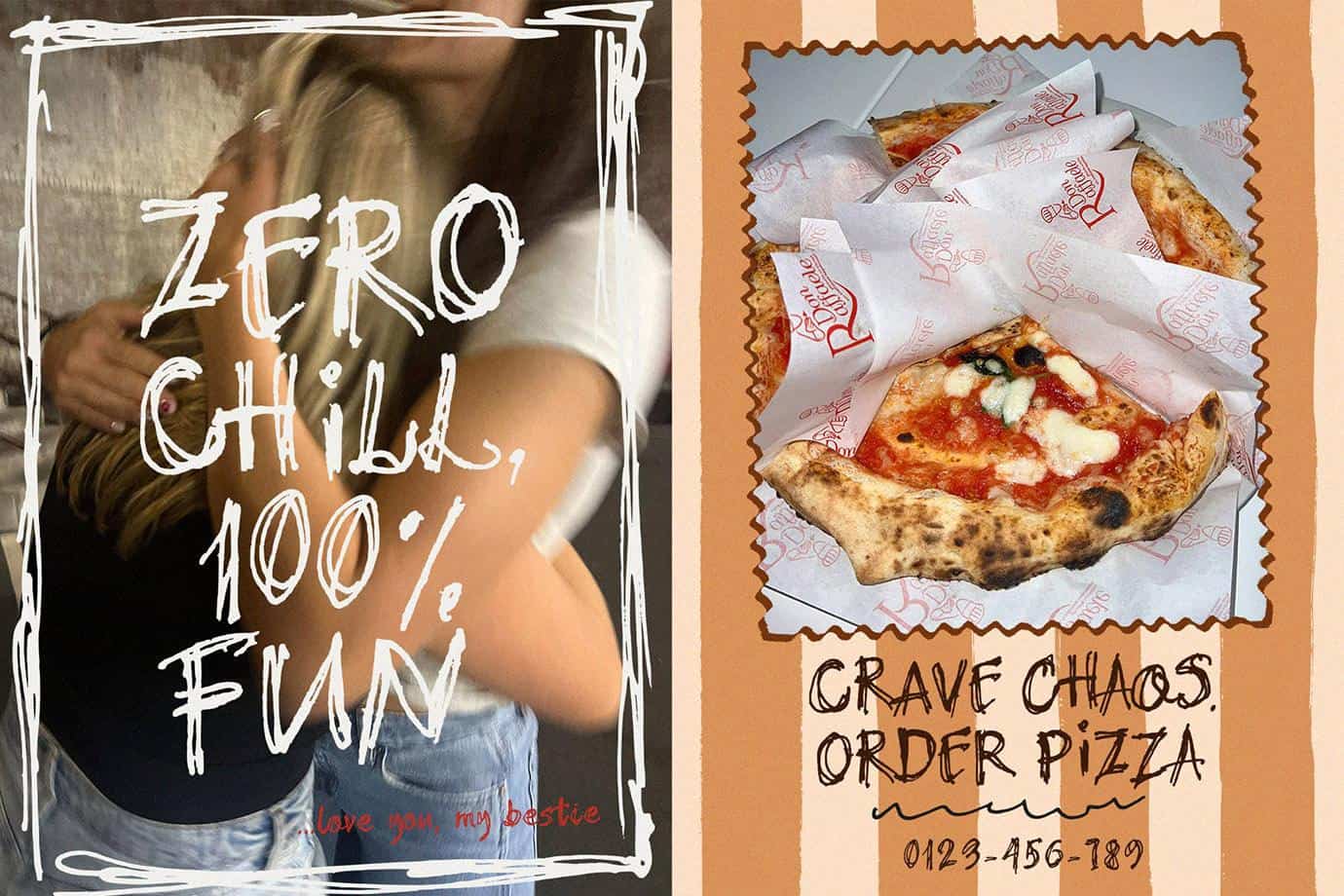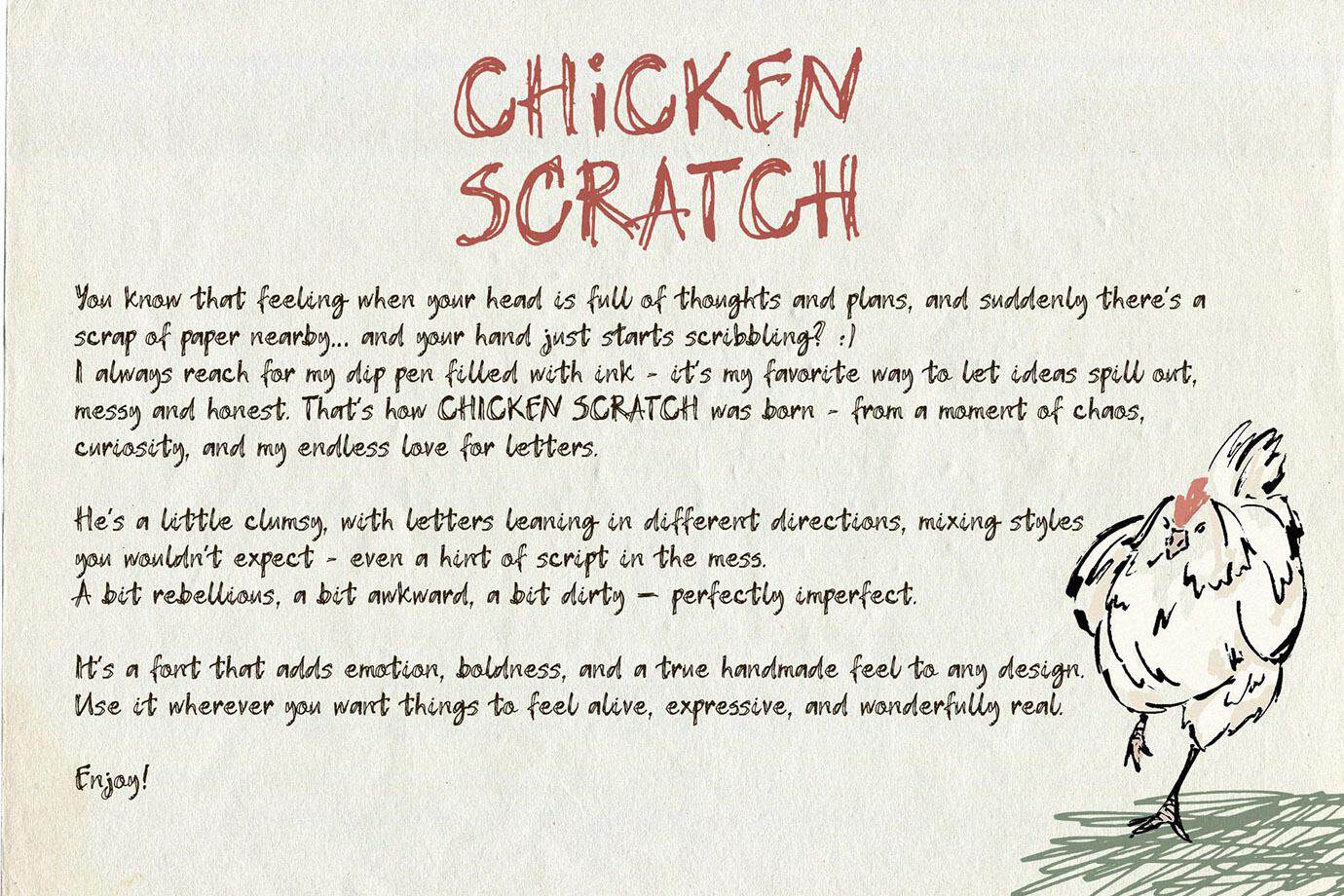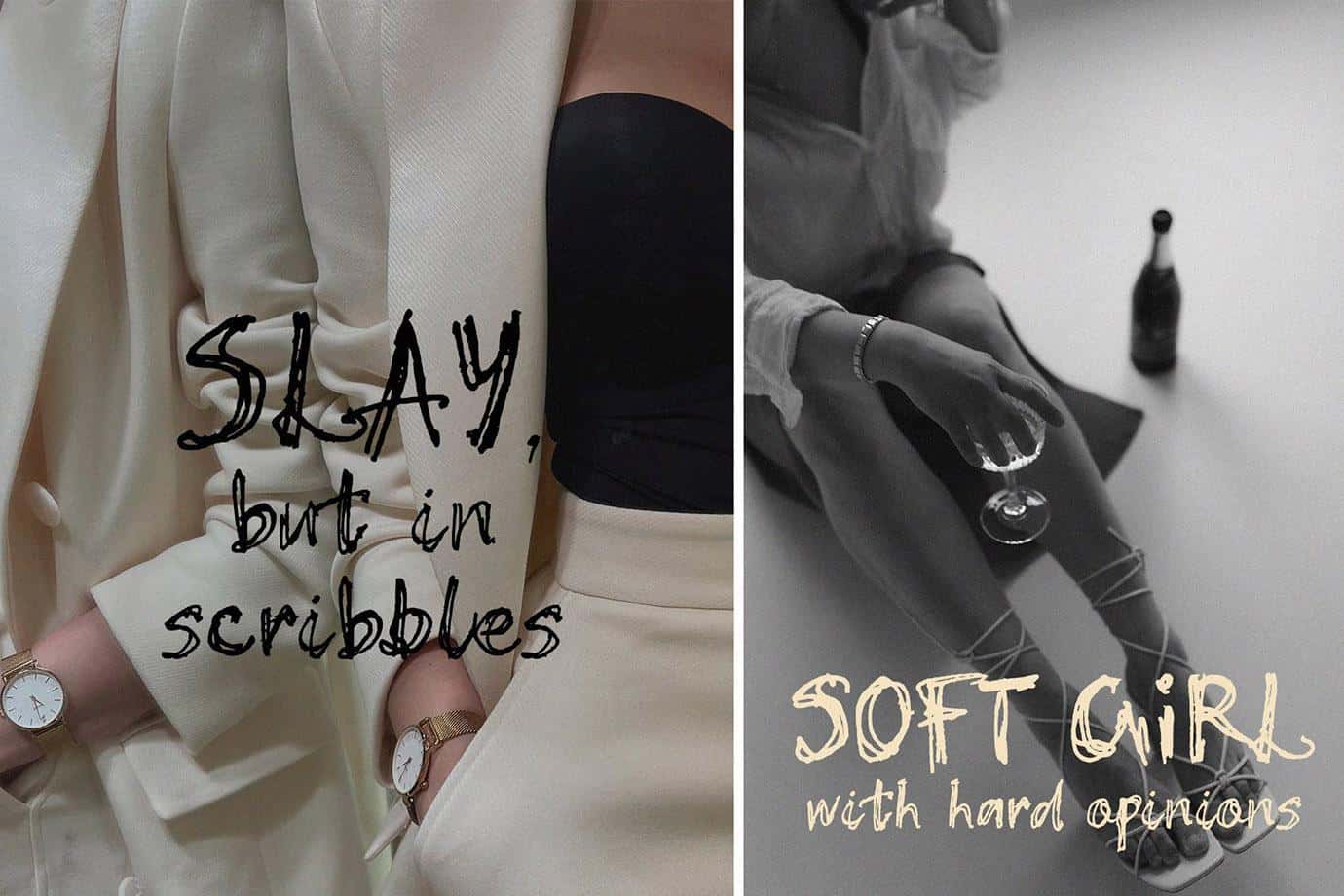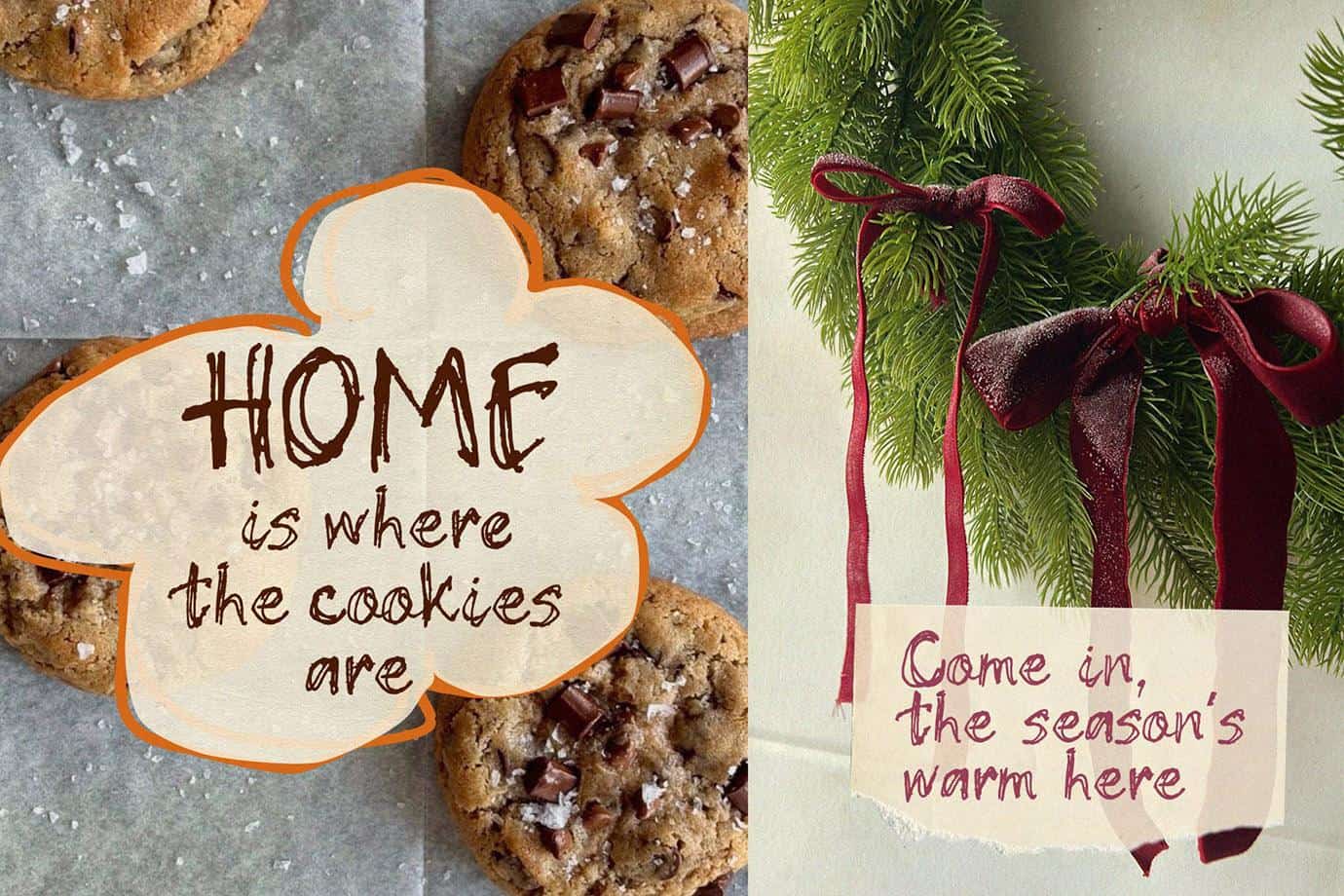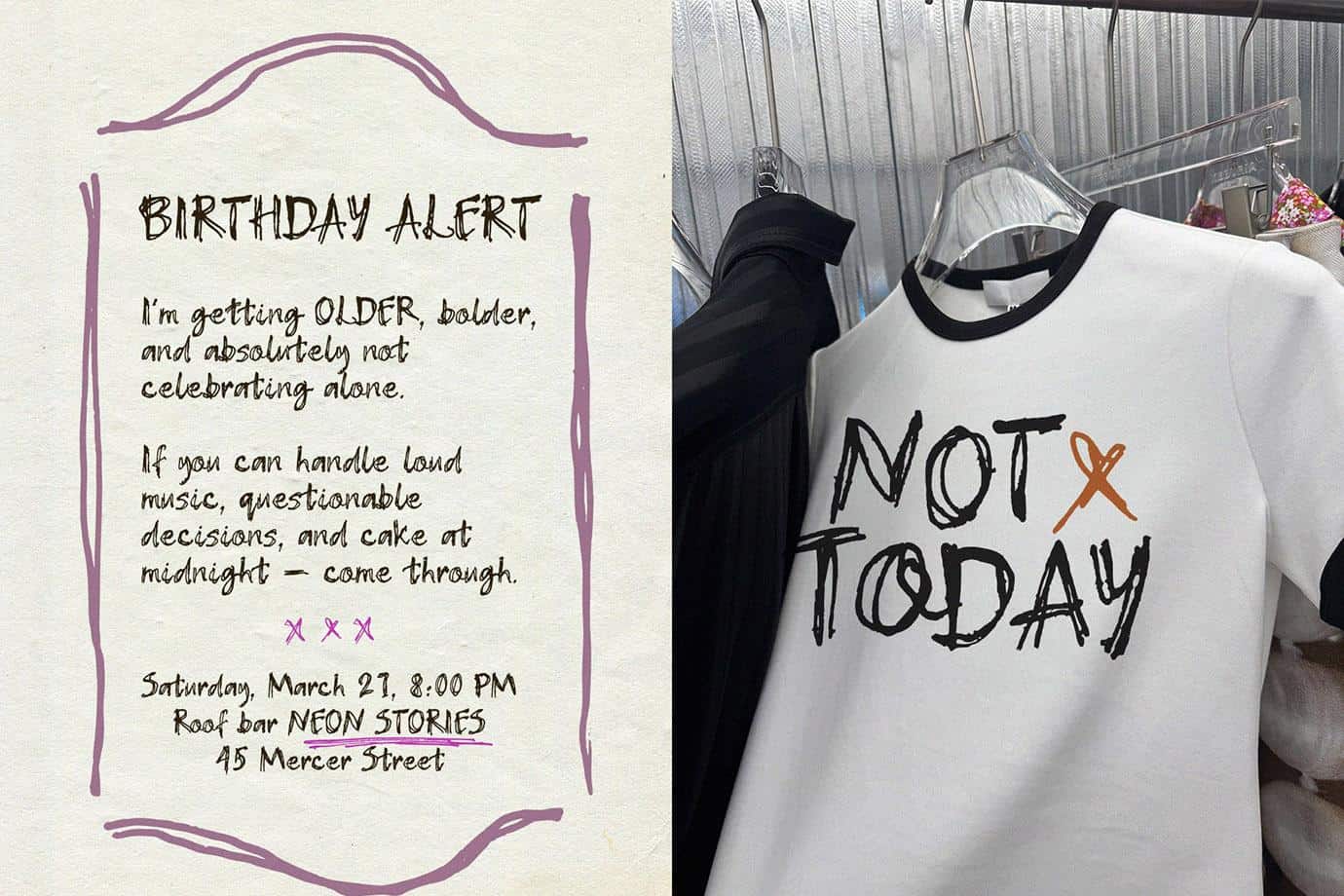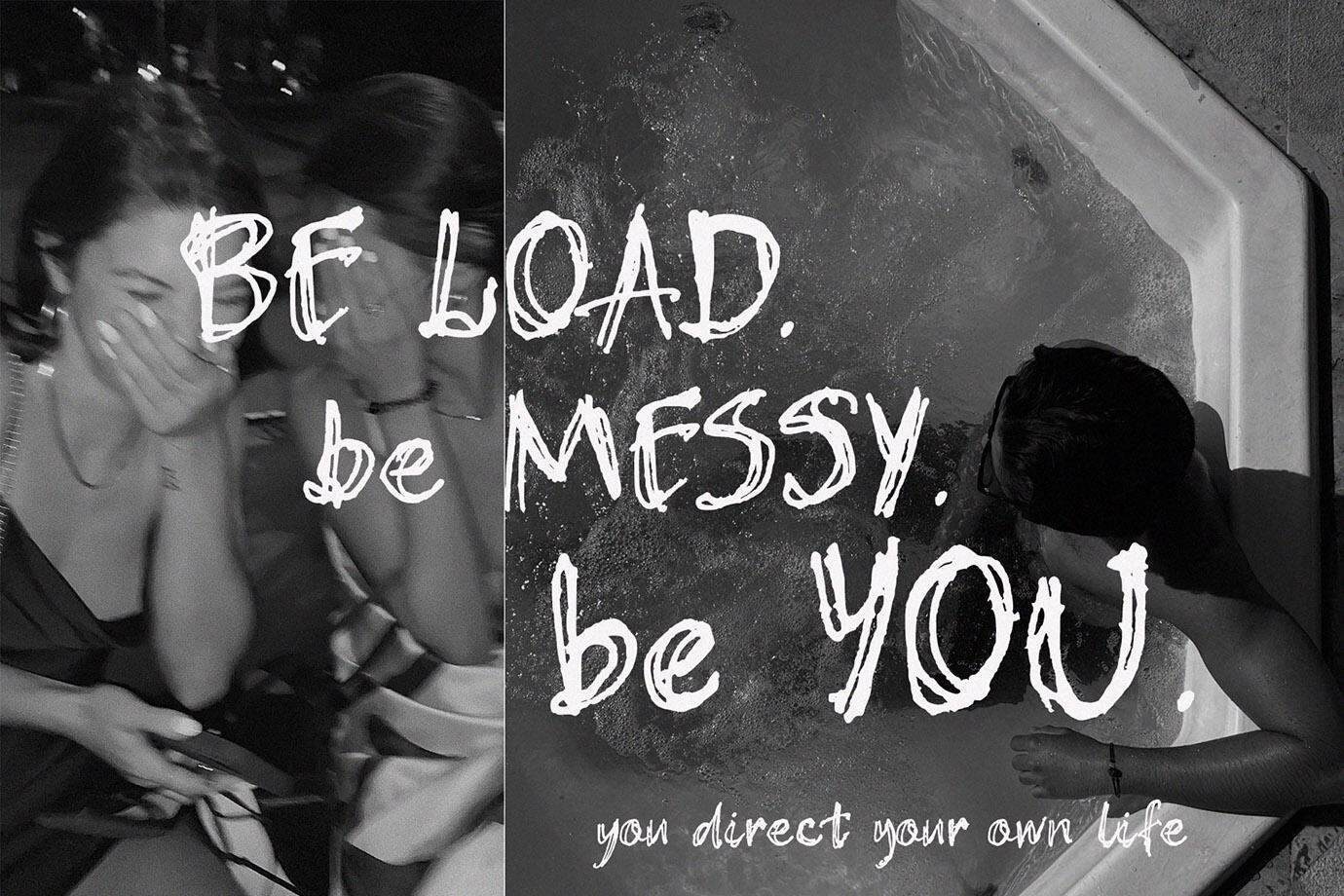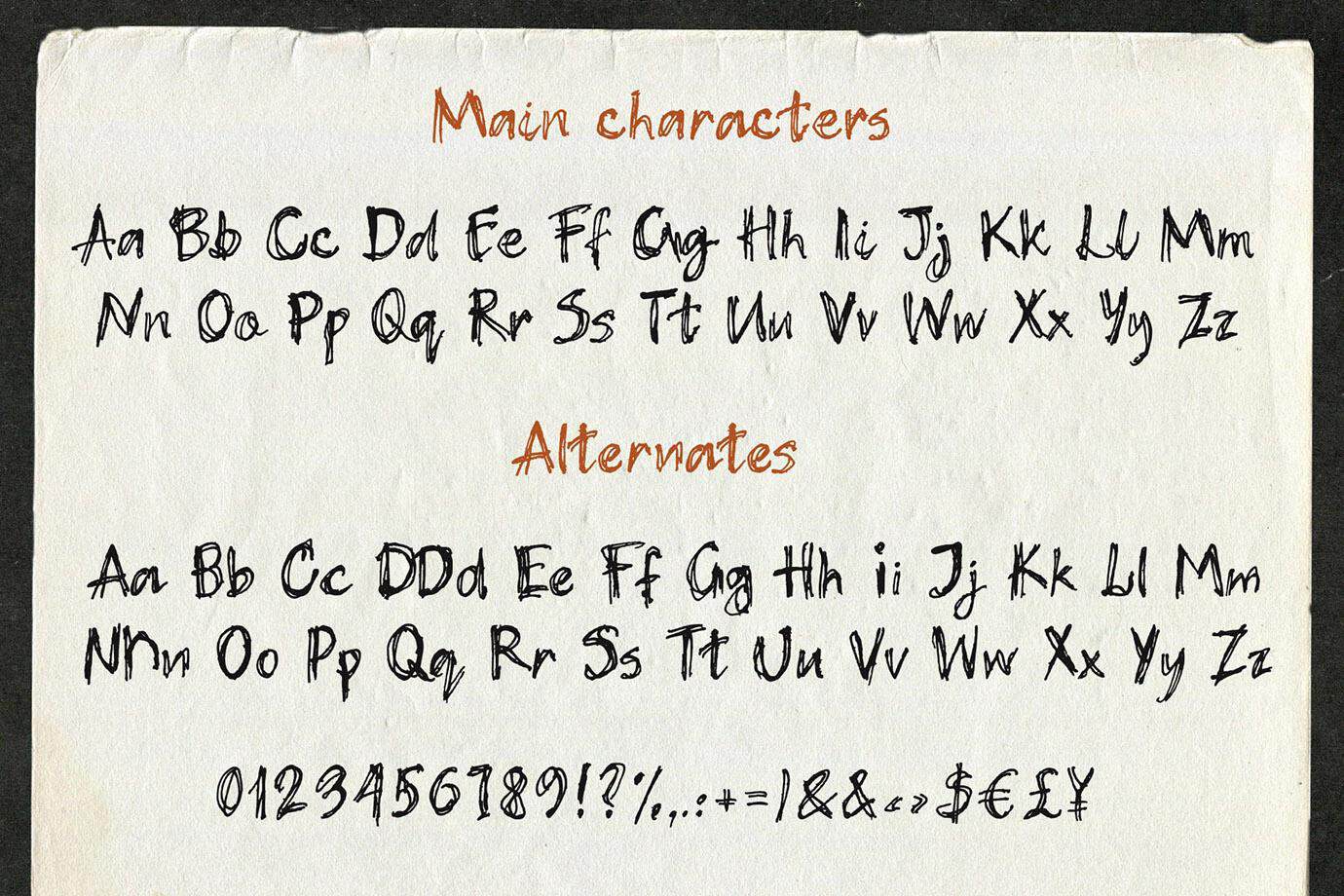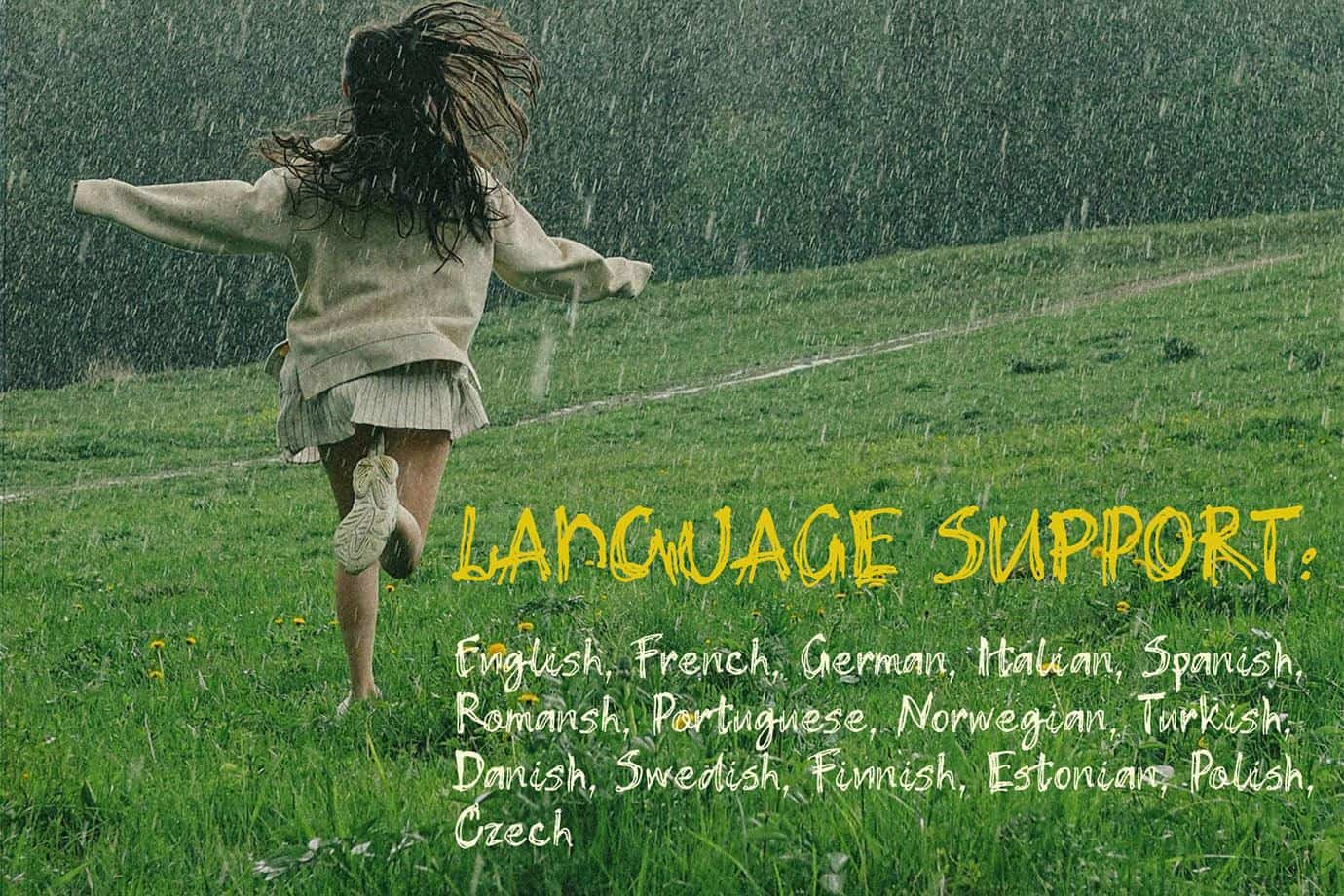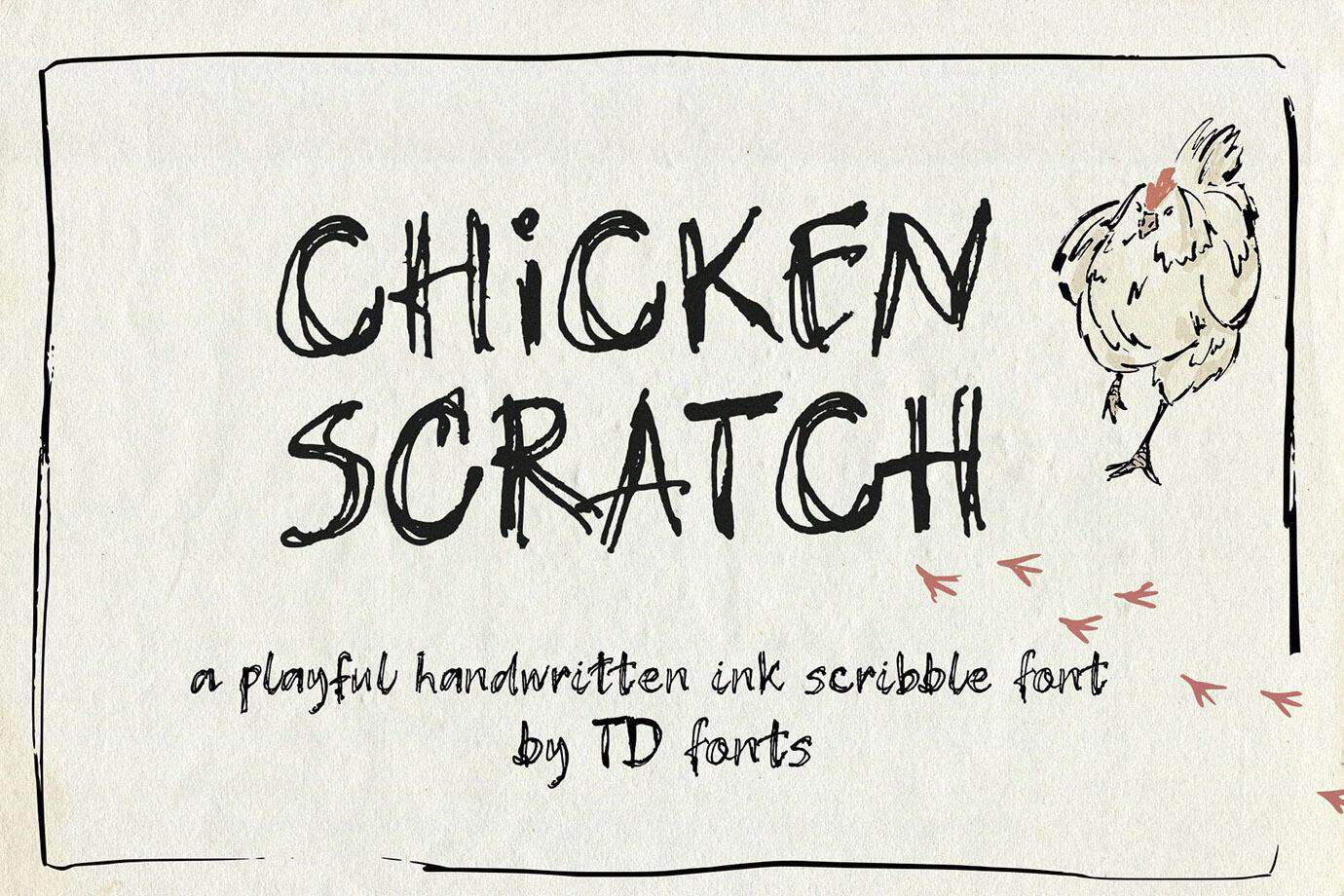
Chicken Scratch ink & messy scribble handwritten font
Chicken Scratch is a textured handwritten scribble ink font infused with the imperfect, energetic raw feel of natural handwriting
Chicken Scratch is a textured handwritten scribble ink font infused with the imperfect, energetic raw feel of natural handwriting.
Meet Chicken Scratch, my new ink handwritten font inspired by those moments when your mind is overflowing with ideas and your hand just has to put them on paper. I grabbed my favorite ink-filled fountain pen, let the handwriting flow freely, and the font practically created itself — messy, crooked, imperfect… and absolutely full of character.
Chicken Scratch is scribbly, wild, and deliciously chaotic. Letters lean in different directions, strokes break and skip, textures feel raw and real — just like true handwriting that isn’t trying to be perfect. It’s bold, expressive, and wonderfully unpolished.
This font was made for designers who love handcrafted authenticity, emotional imperfection, and honest visual storytelling. Use it anywhere you want to add attitude, grit, humor, charm, or a sense of real human touch: branding, posters, packaging, social media, apparel, invitations, stickers, editorials — anything that needs personality.
Chicken Scratch is fully multilingual and supports English, French, German, Italian, Spanish, Portuguese, Danish, Norwegian, Swedish, Finnish, Estonian, Romansh, Turkish, and Polish. It also includes alternates and ligatures to keep your lettering organic and natural.
Perfectly imperfect. Beautifully messy. Wildly expressive.
Enjoy Chicken Scratch — a font that celebrates handwriting in its most human, unfiltered form.